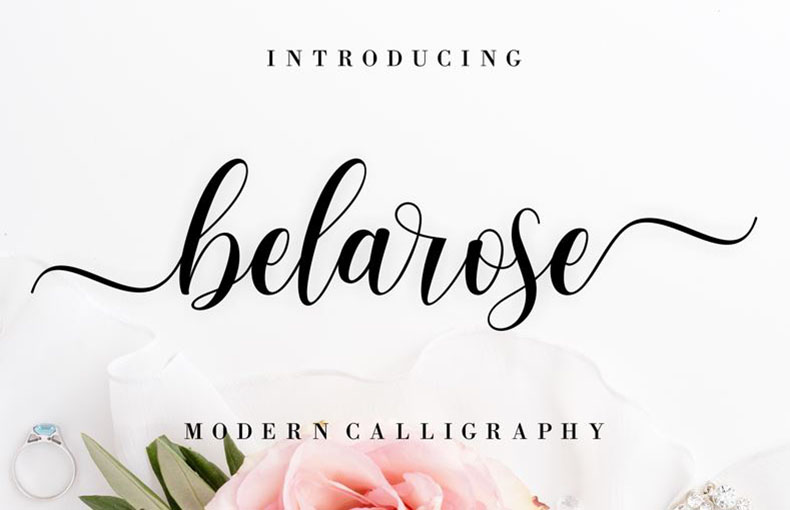
Belarose Font is a script calligraphy typeface that was made by MJB Letters. This brilliant font features a cheerful script design with pretty swashes and dynamic letters.
Belarose typeface has beautiful glyphs, a baseline that varies, and smooth lines. Additionally, it features a variety of alternatives and swashes that can be applied to produce a more unique appearance.
A charming font with a sweet, carefree tone, this font will help make any typography poster stand out. Use it on videos, apps, or even a personal website!
| Font Name: | Belarose Font Family |
| Style: | Script, Calligrahy, Typeface |
| Font Designer: | MJB Letters |
The titles, layouts, fabric designs, headings, shop names, movies, TV shows, banners, emblems, t-shirt designs, homeware designs, invitation cards, wedding cards, birthday invitations, quotes, and calligraphy artwork can all be created using this calligraphy font.
Additionally, it will provide you with a clear view of all academic assignments, PowerPoint presentations, report cards, signatures, documents, content writing, certificates, notes, newspapers, manuals, and more.
The font Belarose contains 364 glyphs and supports 66 different languages.
FAQs about Belarose Font:
What is Belarose Font?
A stylish typeface used for text and design projects is called Belarose Font. It contains tasteful, ornamental letters that give your content character.
Is Belarose Font readable?
Belarose Font is lovely, yet it might be difficult to read in small print or lengthy paragraphs. It works best for brief headlines or original design elements.